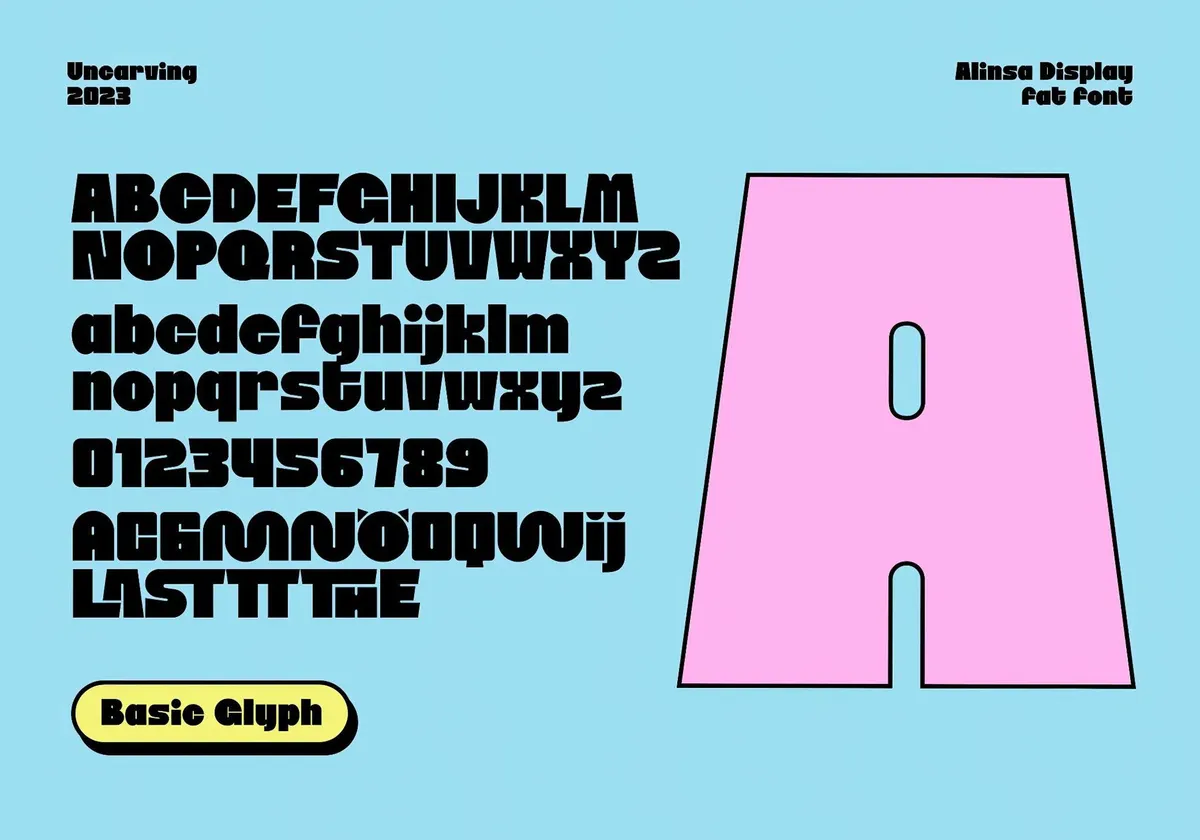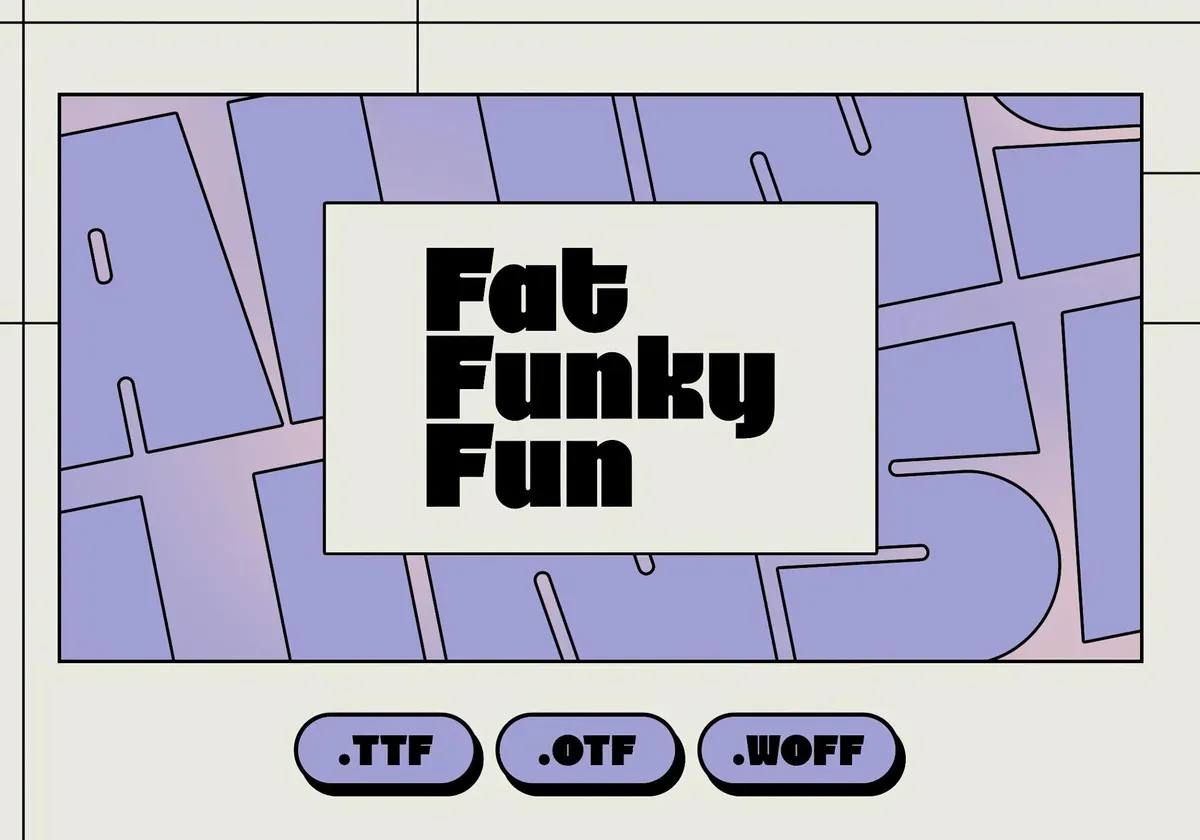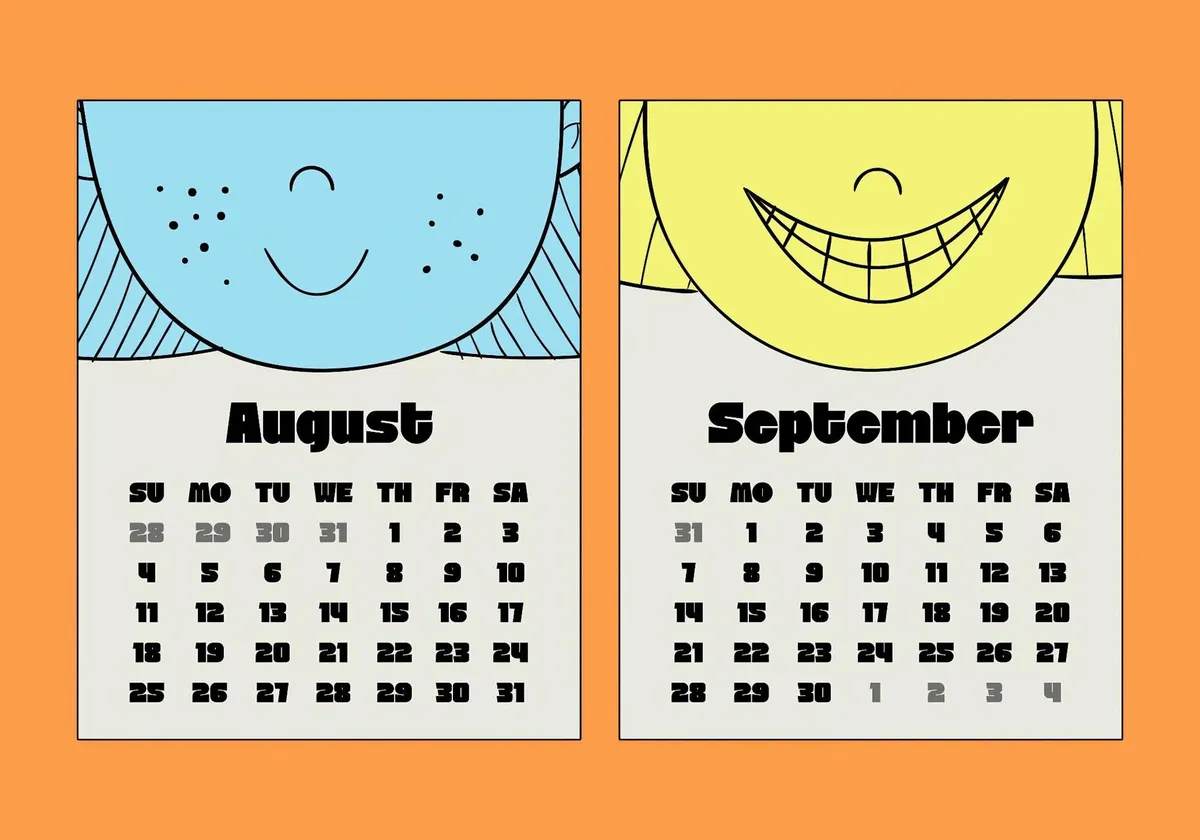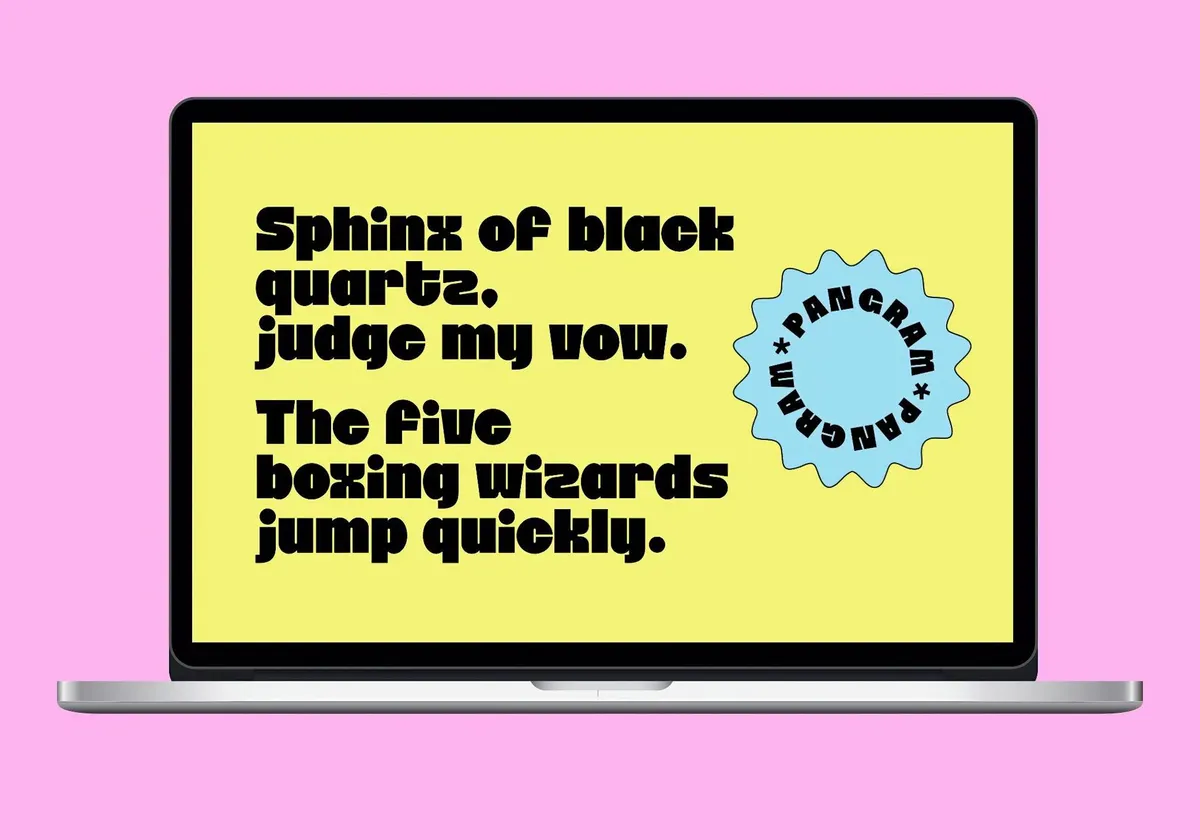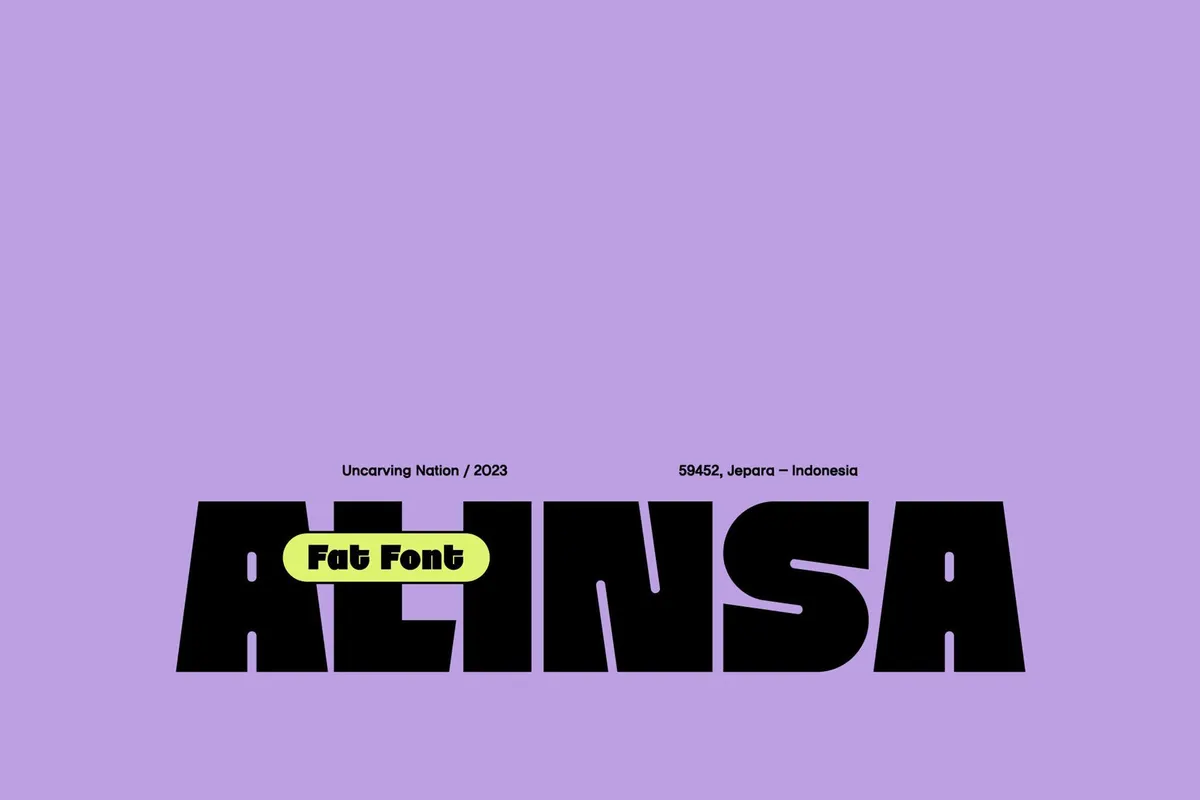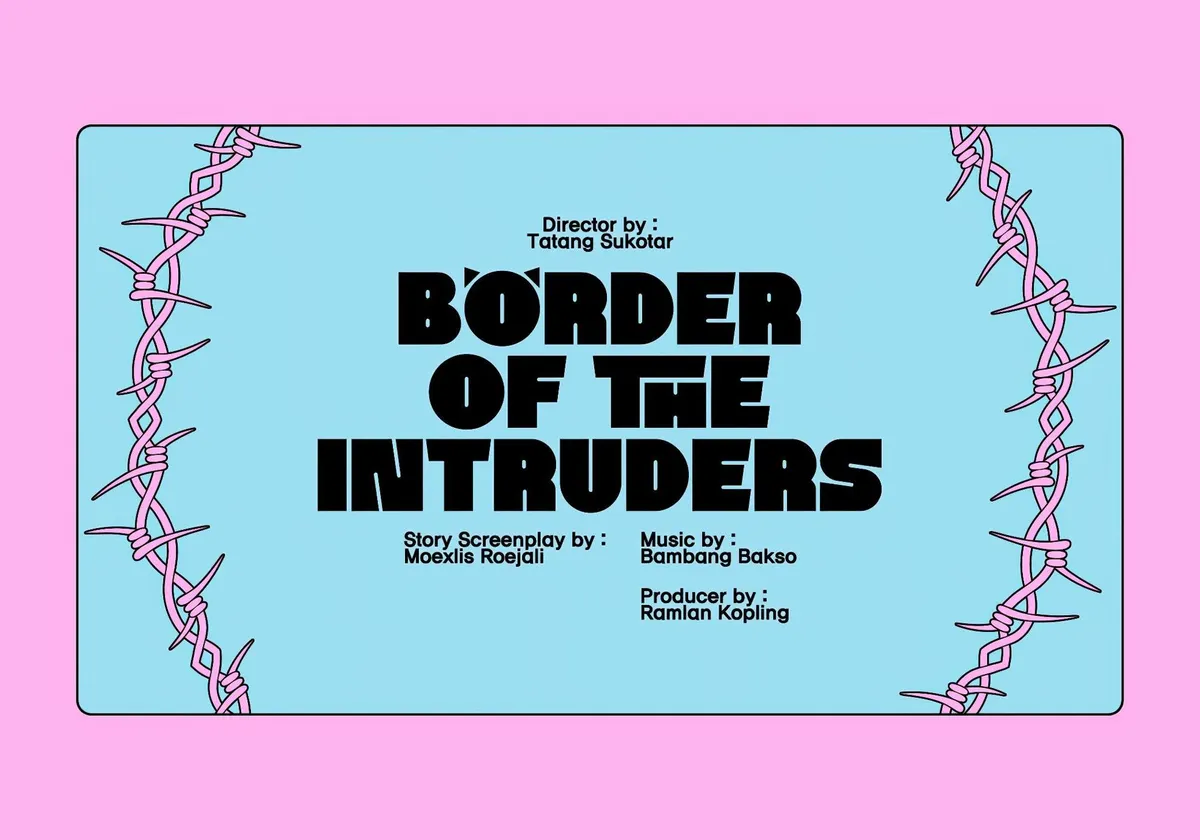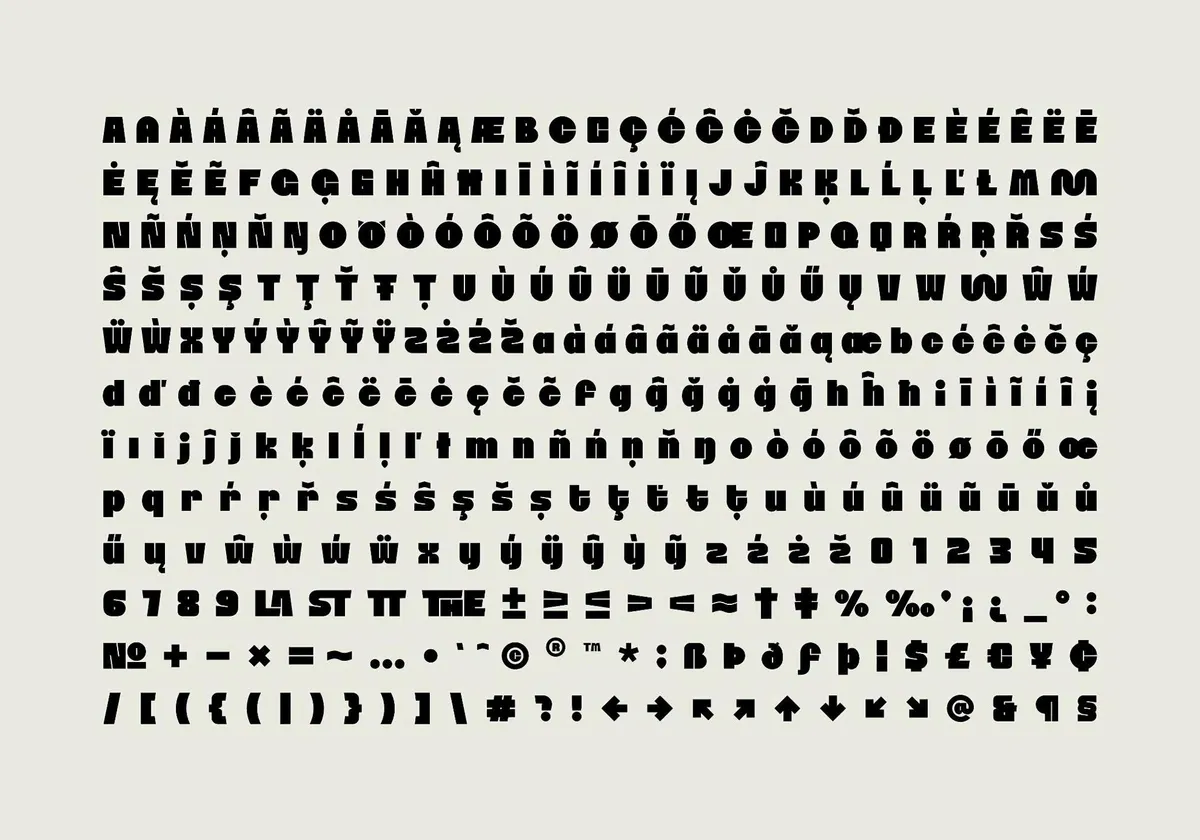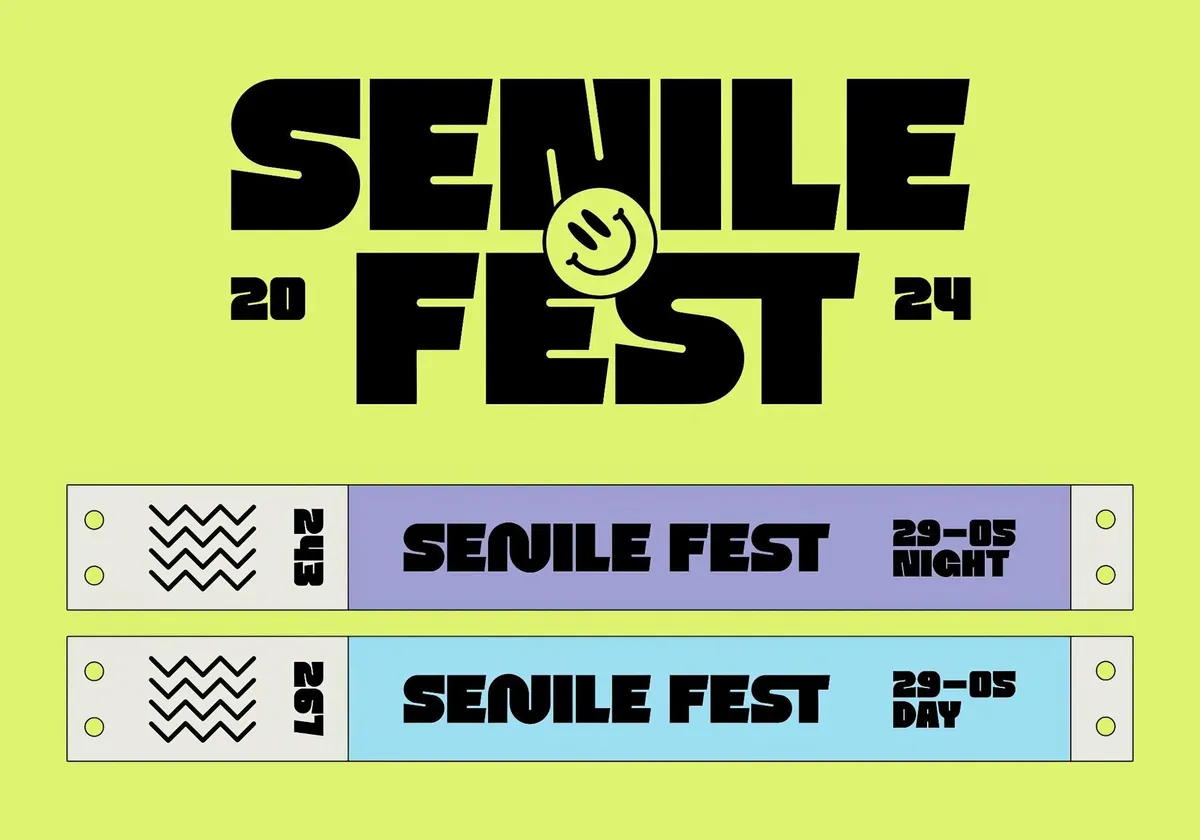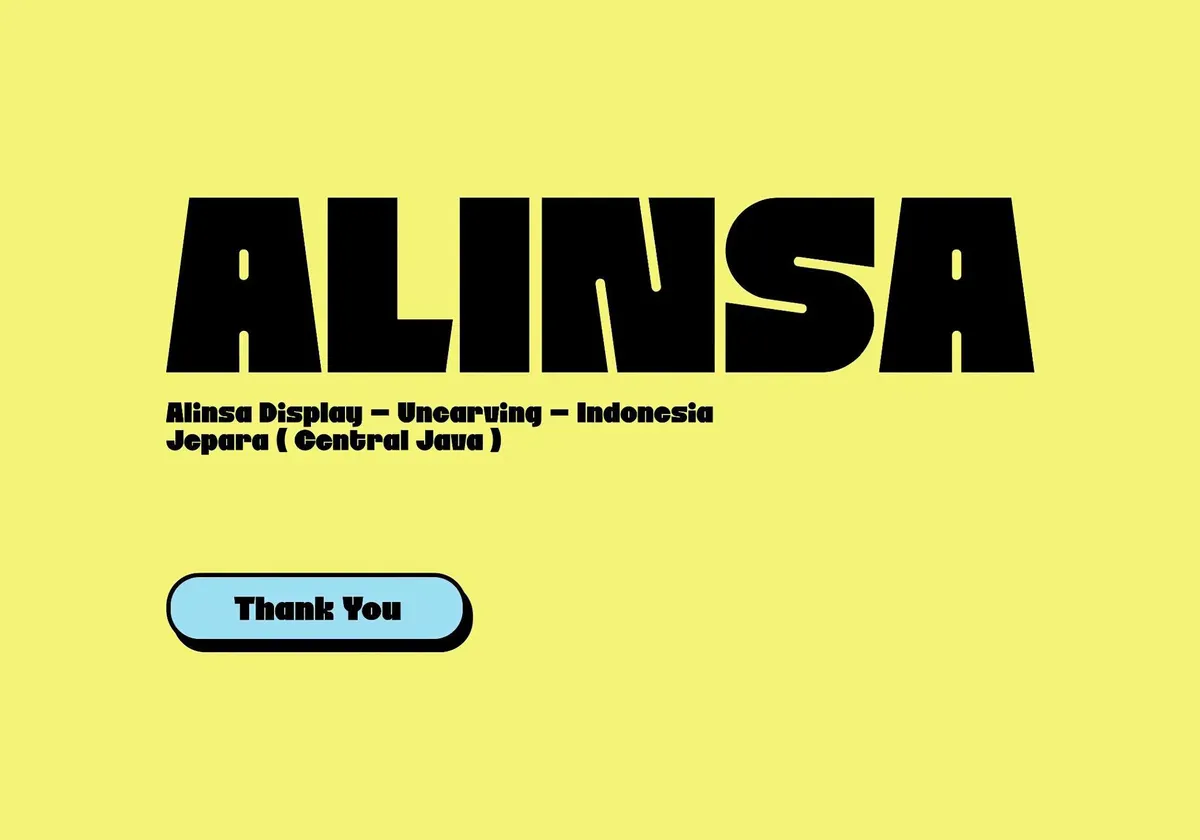
Alinsa — Display Font
If you’re bored of those neutral, “play it safe” fonts that practically put you to sleep, meet Alinsa. Bold, funky, and rocking those strong neobrutal vibes, this display font doesn’t whisper — it shouts.
Think of it as a rebellion, a little dose of design punk that refuses to blend in. With chunky shapes, sharp edges, and playful proportions, Alinsa is the typeface equivalent of a loud and proud statement piece. The balanced kerning and geometric lines give it a structured feel that’s both clean and confrontational. You get all the essentials here — uppercase, lowercase, numerals, punctuation — but also stylistic alternates and ligatures , just to keep things extra spicy. Perfect for posters, branding, or any project that demands a minimalistic yet sharp personality.